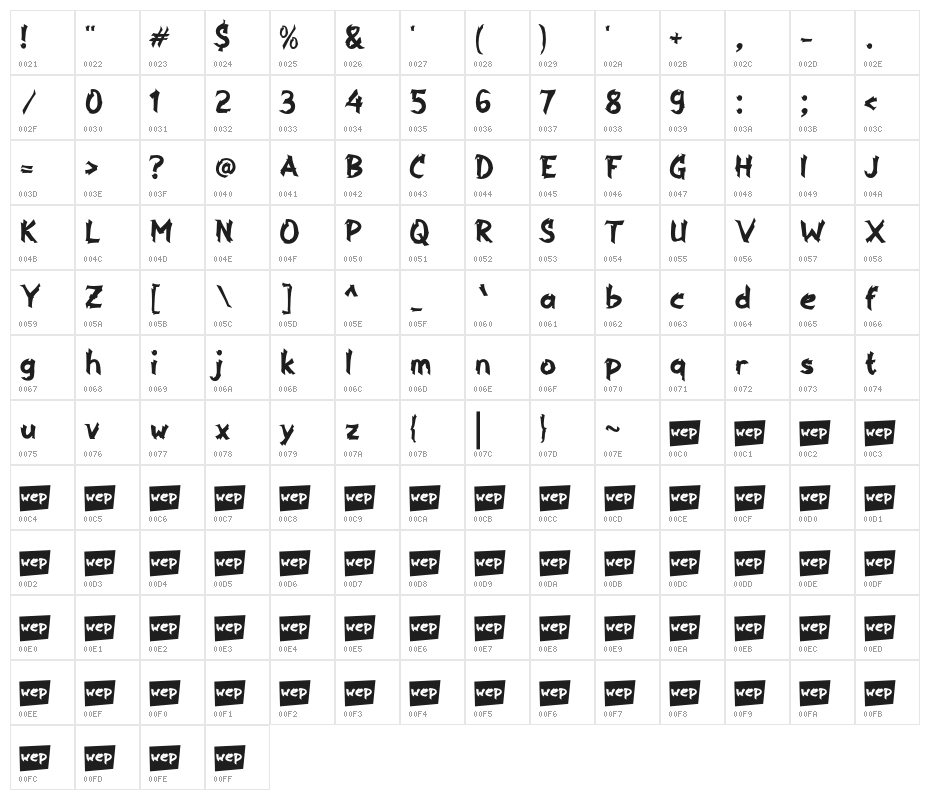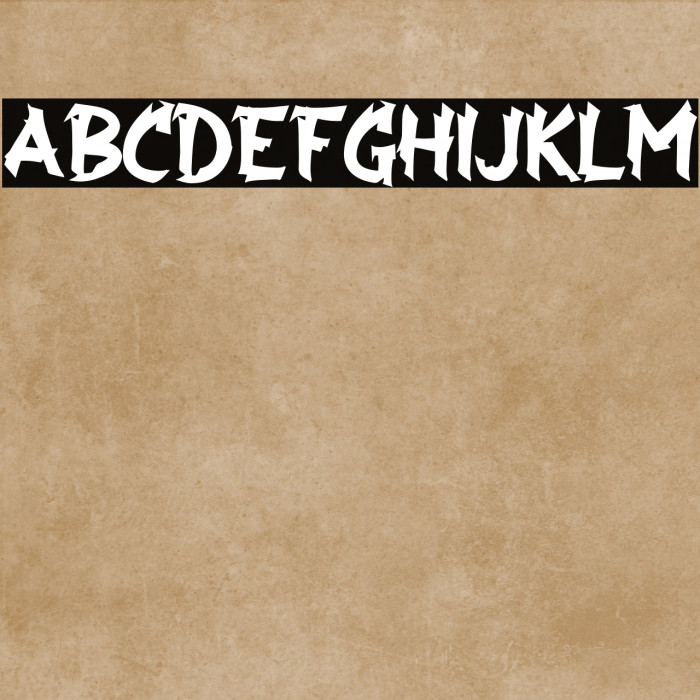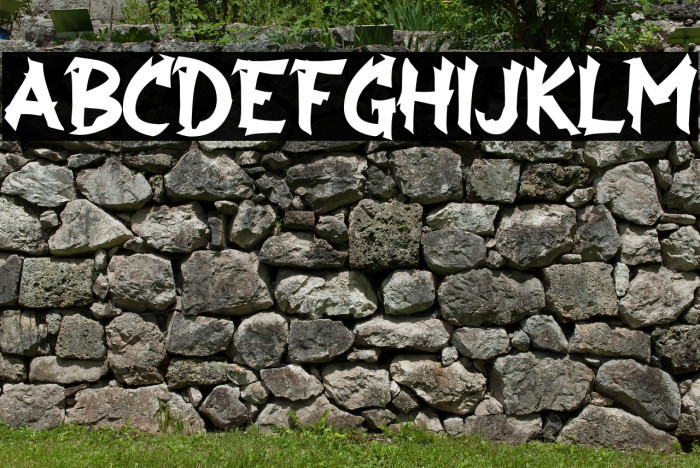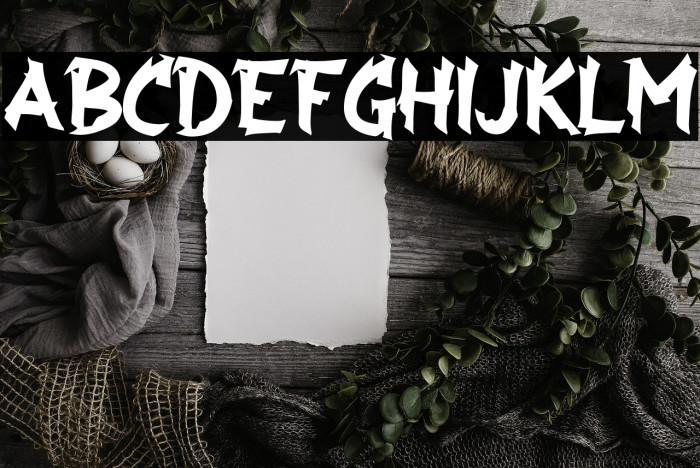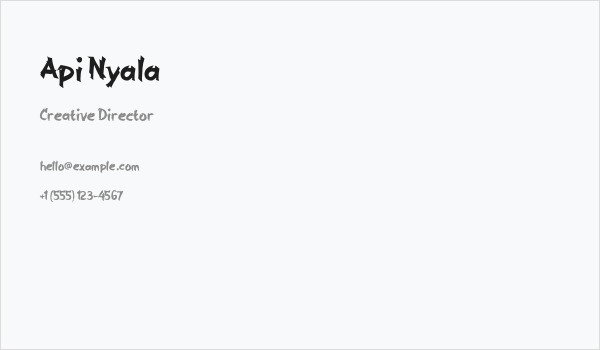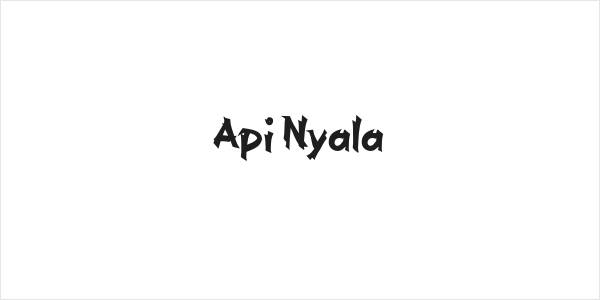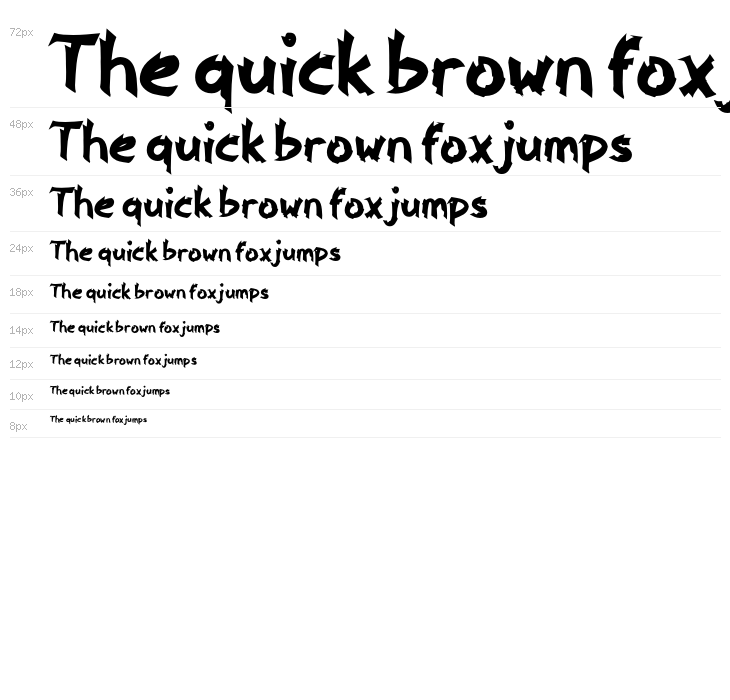
Api Nyala Font
Api Nyala Description
This font features a bold and dynamic style with sharp, angular edges that give it a fierce and energetic appearance. The characters are irregular and jagged, resembling brush strokes or cut-out paper, which adds a sense of movement and intensity. The uppercase and lowercase letters maintain a consistent style, with exaggerated serifs and varying line thicknesses that create a striking visual impact. The numbers and special characters follow the same design principles, ensuring a cohesive look across all elements. This font is ideal for projects that require a bold statement or an edgy, artistic touch.
| Overall Style | Modern, Artistic |
| Proposed Projects | Ideal for posters, album covers, branding for edgy products, or any project needing a bold artistic touch. |